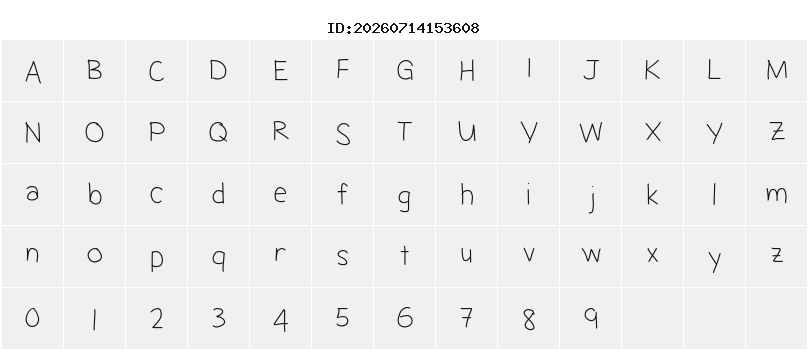
• Font Name: Jacquelyn's Messy Hand Medium
• Designer: Jacquelyn Soh
About Jacquelyn's Messy Hand Medium.ttf
Jacquelyn's Messy Hand Medium.ttf is a modern, elegant sans-serif font designed for ultimate readability and visual harmony. Perfect for branding, headlines, web design, and print materials.